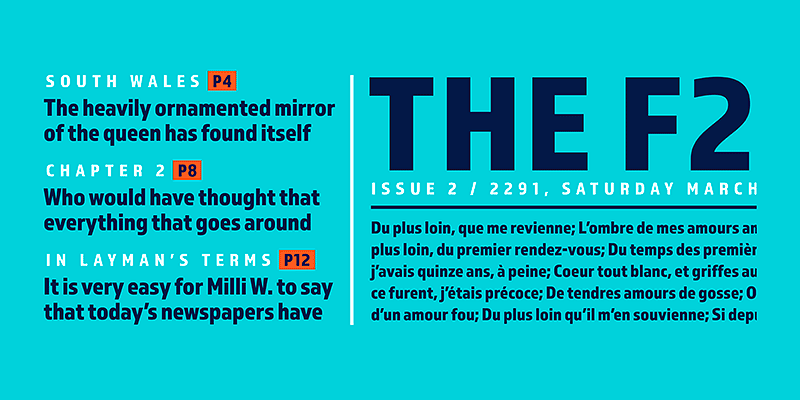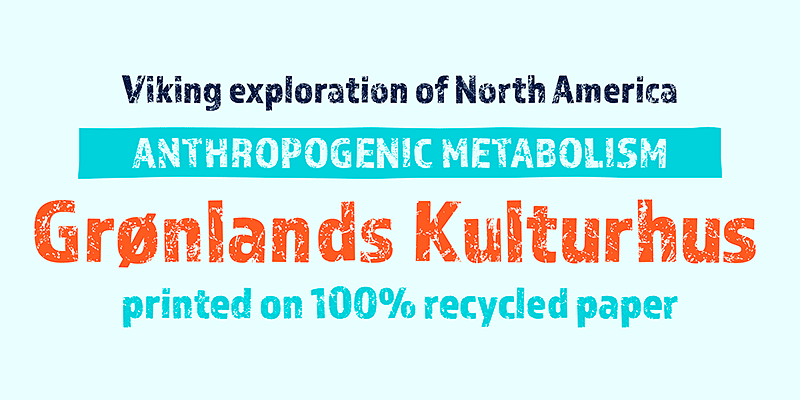
Almaq is a typeface for display and branding with two diverse styles: Refined will carry your message with friendly clarity, while Rough will give it a textured, handmade appeal.